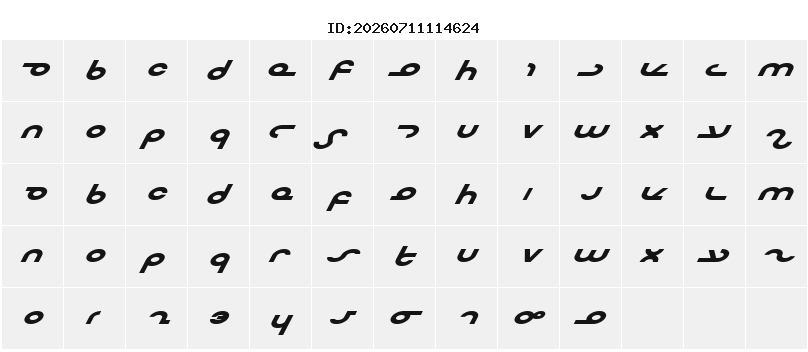
• Font Name: Masterdom Exp Bold Italic
• Font Style: Exp Bold Italic
• Font ID: Masterdom Exp Bold Italic
• Full Font Name: Masterdom Exp Bold Italic
• PostScript Name: MasterdomExpBoldItalic
About Masterdom Exp Bold Italic.ttf
Masterdom Exp Bold Italic.ttf is a modern, elegant sans-serif font designed for ultimate readability and visual harmony. Perfect for branding, headlines, web design, and print materials.